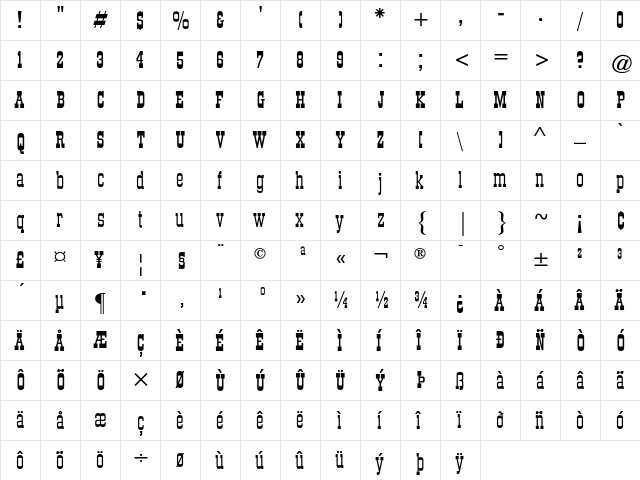
Branding Iron AT Regular
Design Context for Branding Iron AT Typeface
Branding Iron AT is a composed and adaptable typeface that performs quietly and consistently across a wide range of design contexts.